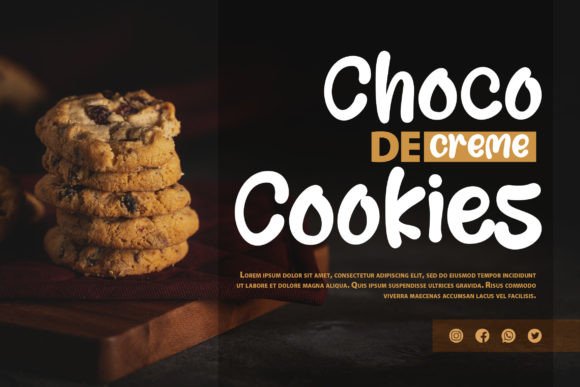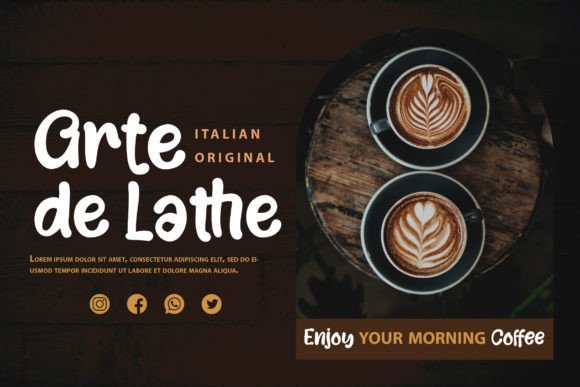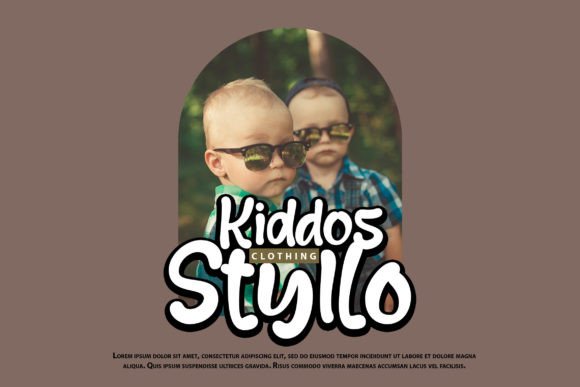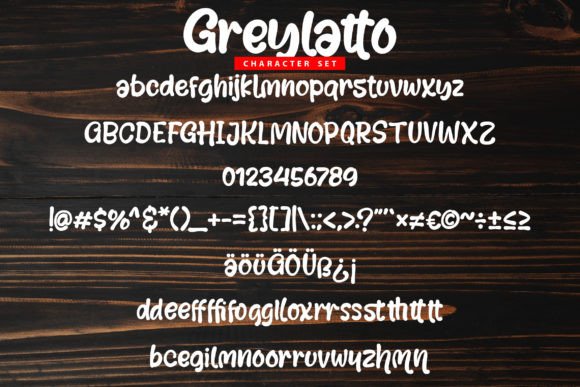
Introducing Greylatto Font: The Perfect Blend of Boldness and Cuteness
Are you a designer or crafter looking for a font that can add a touch of personality to your projects? Look no further than Greylatto Font! This bold and cute display font with a calligraphy style is perfect for creating stunning invitations, greeting cards, branding materials, business cards, quotes, posters, and more.
What Makes Greylatto Font Special?
Greylatto Font is a unique and eye-catching font that is sure to make your designs stand out. Its bold and calligraphic style gives it a distinctive look that is both modern and elegant. The font’s cuteness factor makes it perfect for projects that require a playful and whimsical touch.
Uses of Greylatto Font
Greylatto Font is a versatile font that can be used in a variety of projects, including:
• Invitations: Whether it’s a wedding invitation, birthday party invitation, or baby shower invitation, Greylatto Font is the perfect choice.
• Greeting Cards: Create beautiful and personalized greeting cards for special occasions like Christmas, Valentine’s Day, or Mother’s Day.
• Branding Materials: Use Greylatto Font to create stunning logos, brochures, and flyers that will make your brand stand out.
• Business Cards: Make a great impression with a beautifully designed business card featuring Greylatto Font.
• Quotes: Add a touch of elegance and sophistication to your quotes with Greylatto Font.
• Posters: Create eye-catching posters for events, promotions, or advertisements using Greylatto Font.
Why Designers and Crafters Love Greylatto Font
Greylatto Font has become a favorite among designers and crafters due to its unique features and benefits. Here are some reasons why:
• Easy to Read: Despite its bold style, Greylatto Font is easy to read, making it perfect for projects that require a clear and concise message.
• Highly Versatile: Greylatto Font can be used in a variety of projects, from digital designs to print materials.
• Customizable: You can customize Greylatto Font to fit your project’s needs, making it a great choice for designers and crafters.
• Unique and Eye-Catching: Greylatto Font’s distinctive style makes it stand out from other fonts, ensuring that your designs will grab attention.
Tips for Using Greylatto Font
To get the most out of Greylatto Font, here are some tips to keep in mind:
• Pair it with Other Fonts: Combine Greylatto Font with other fonts to create a unique and visually appealing design.
• Experiment with Colors: Try out different colors and color combinations to find the perfect match for your project.
• Use it for Headings: Greylatto Font is perfect for headings and titles, making it a great choice for projects that require a bold and eye-catching font.
Greylatto Font is a bold and cute display font with a calligraphy style that is perfect for designers and crafters looking to add a touch of personality to their projects. Its versatility, customizability, and unique style make it a great choice for a variety of projects, from invitations and greeting cards to branding materials and posters. With Greylatto Font, you can create stunning designs that will grab attention and leave a lasting impression.